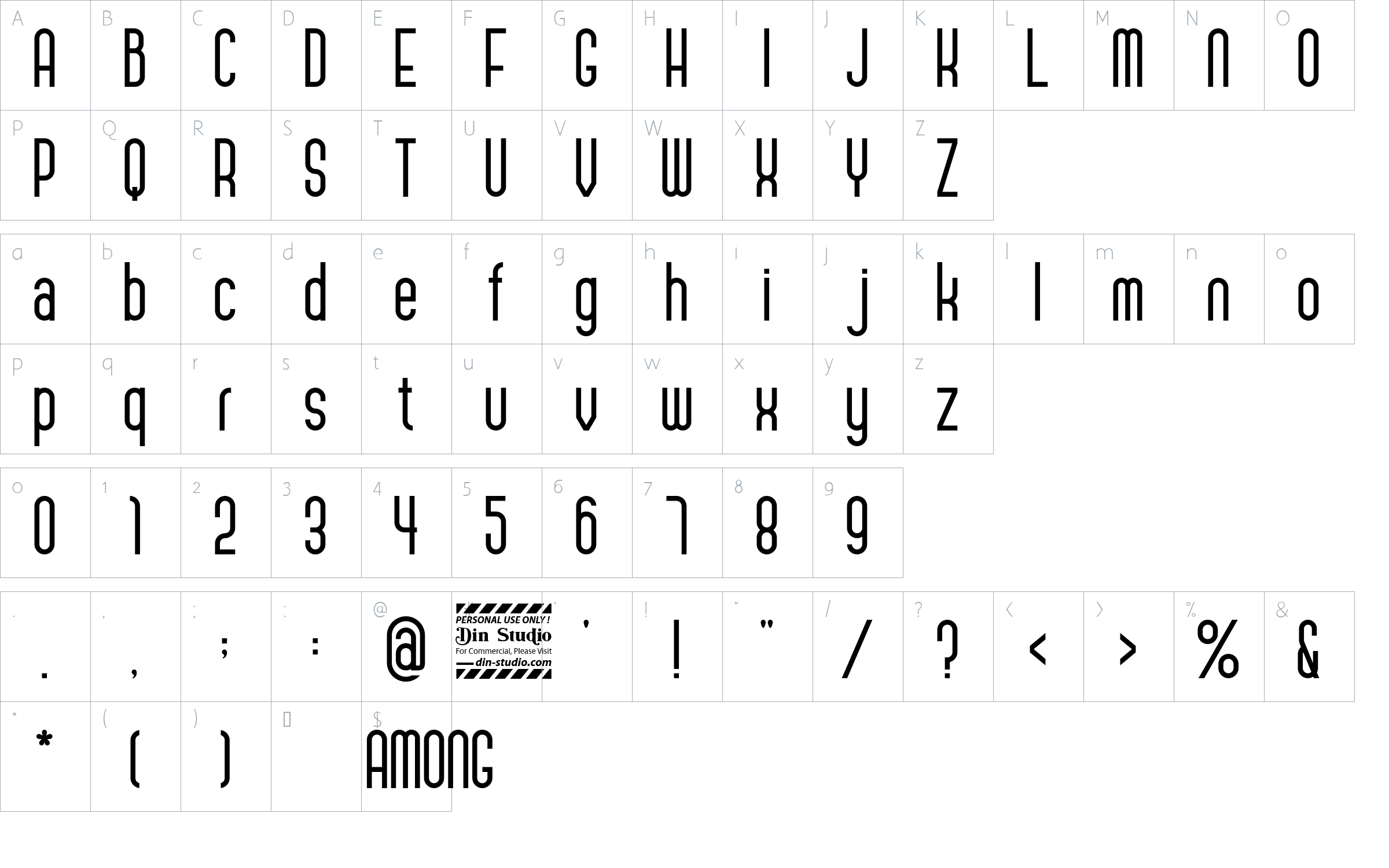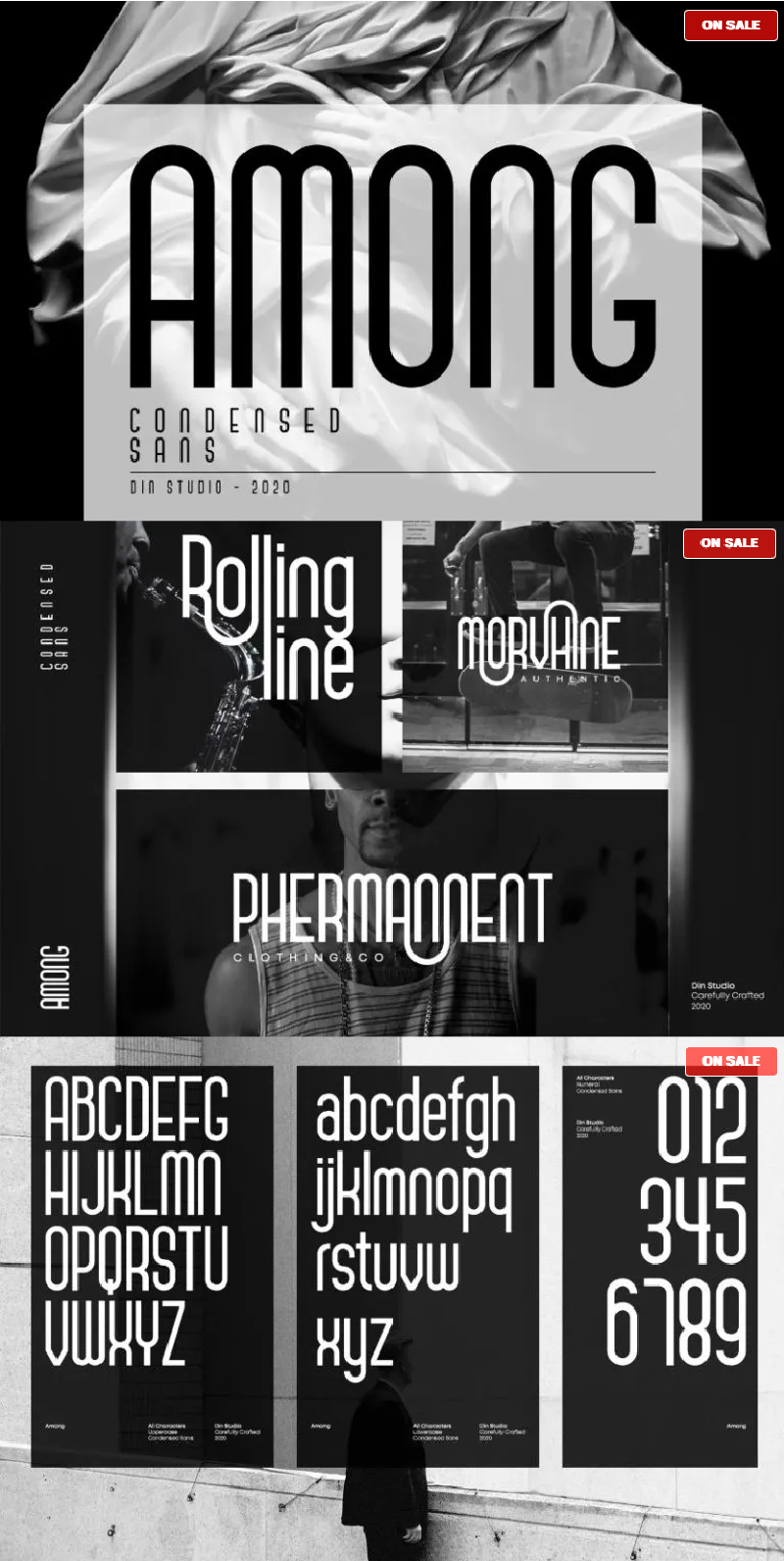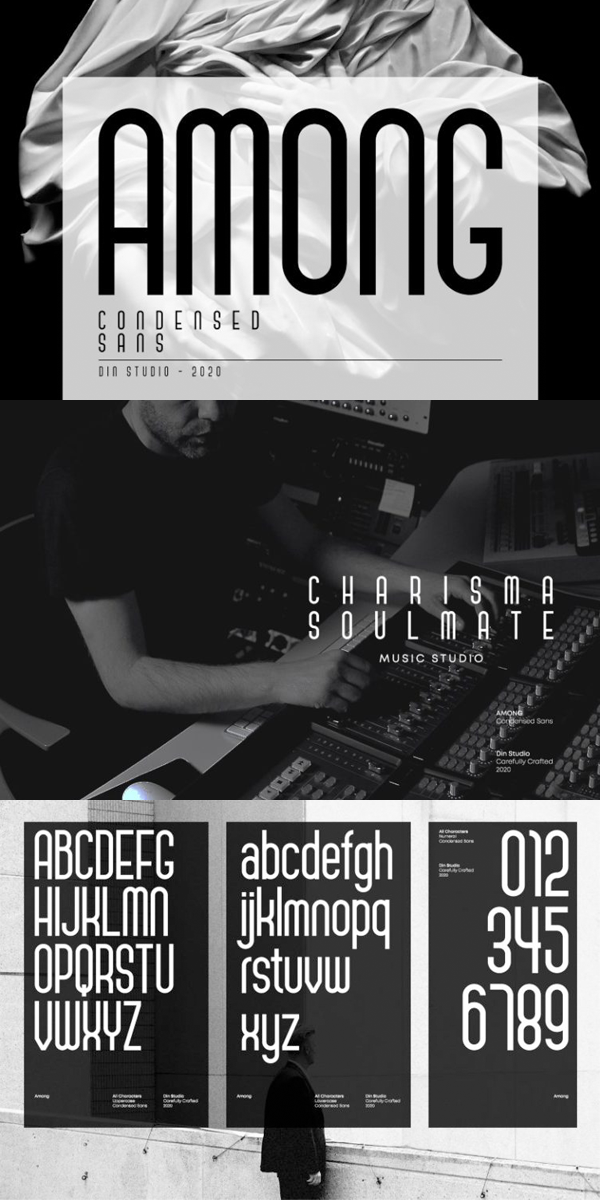
Among Font
About Among
Among is a beautiful sans serif font made for any professional project brandings. It is perfect for printings, brandings, logos, posters, book covers, websites , social media posts, quotes, texts, and more. Every letter has a unique and beautiful touch.